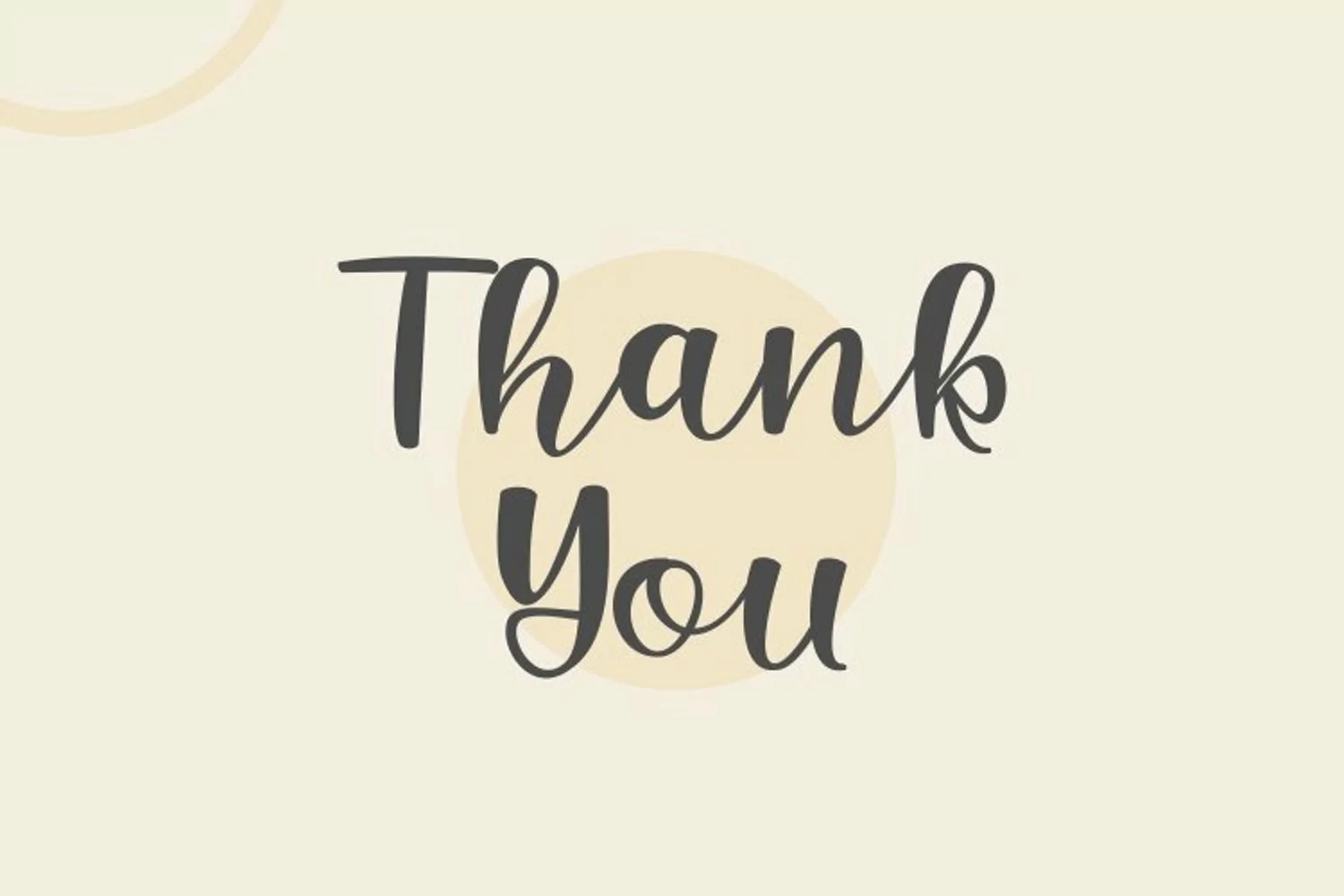
Valline Wish is Handwritten Script font. It has a elegant, and modern look which can be used for logos, branding, invitations, stationary, wedding designs, social media posts, and every other design.